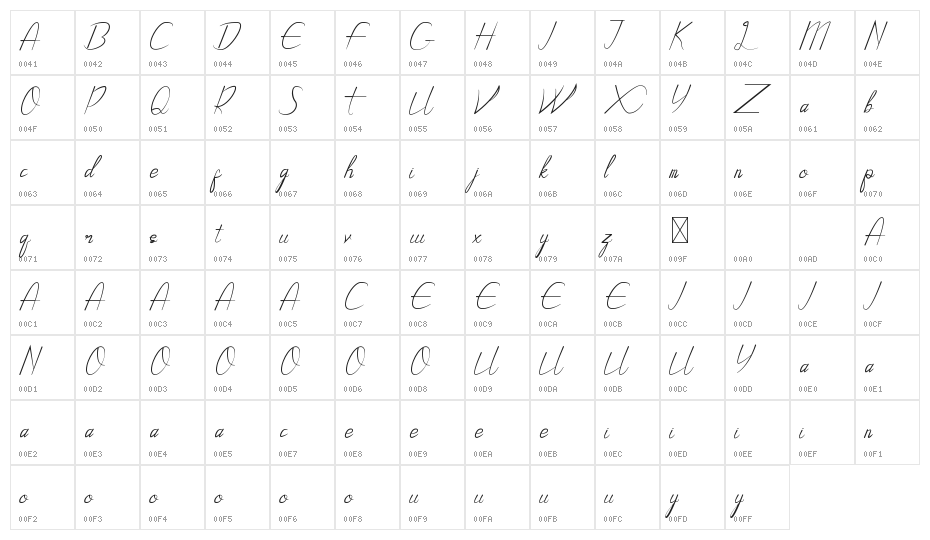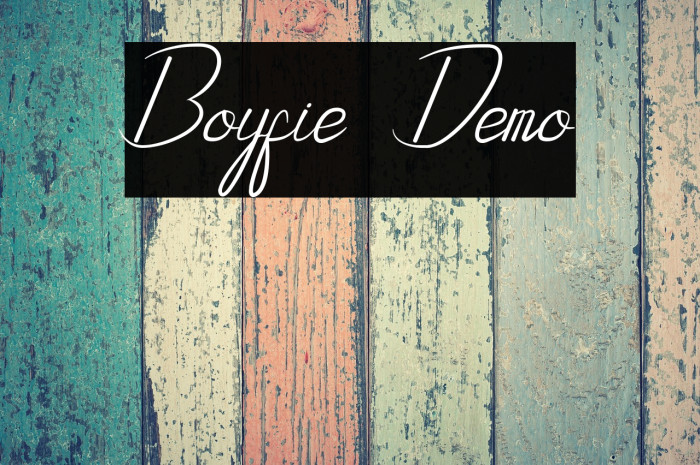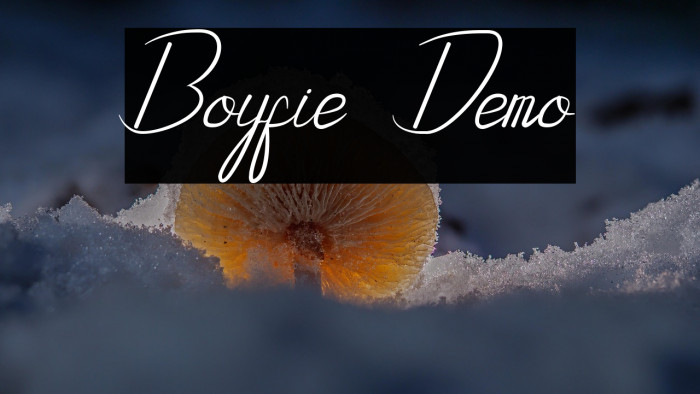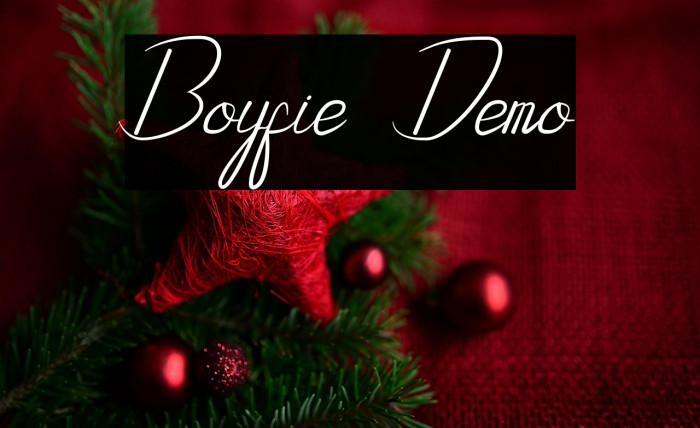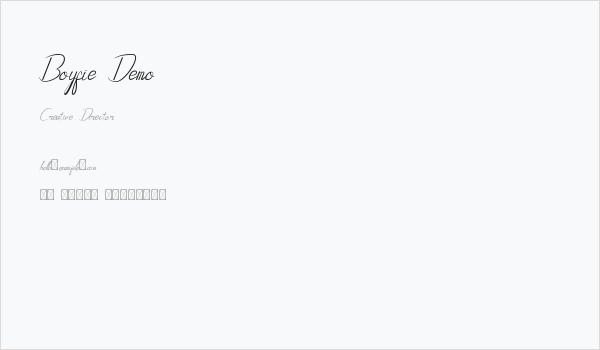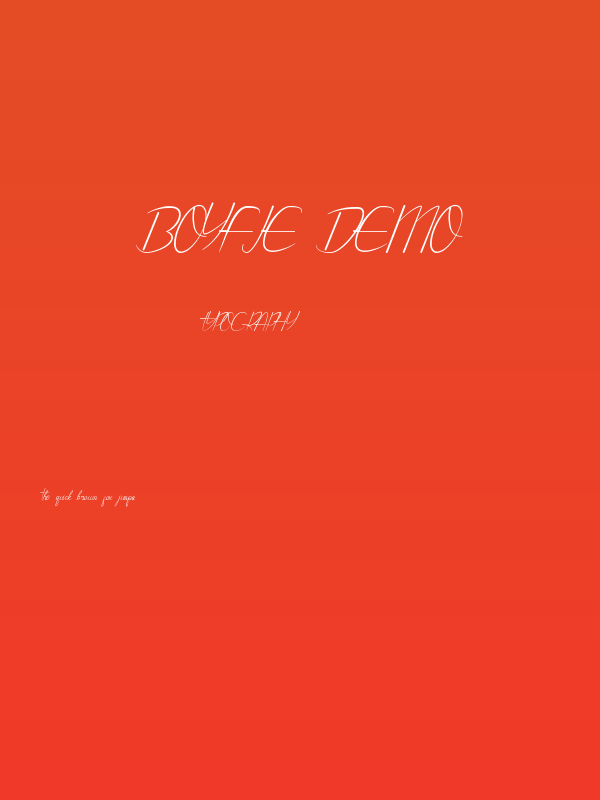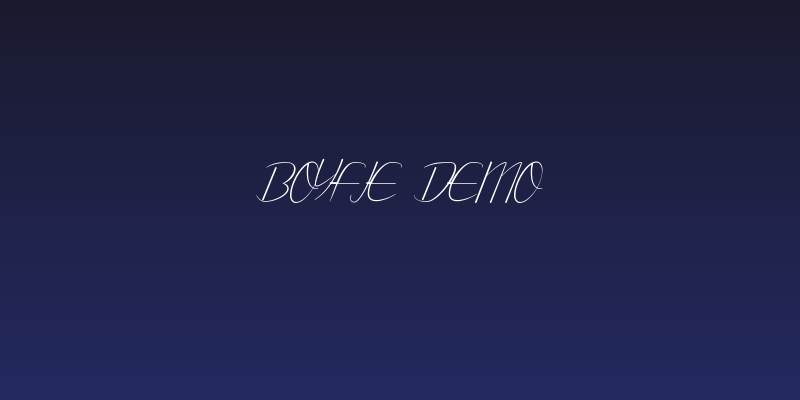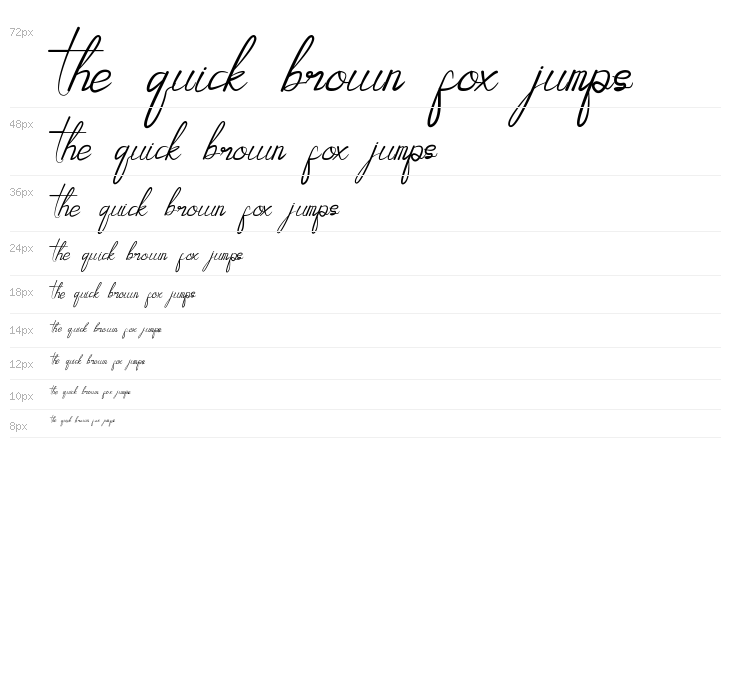
Boyfie Demo Font
Boyfie Demo Description
This font features an elegant and flowing script style, characterized by its thin, elongated strokes and graceful curves. The uppercase letters exhibit a sophisticated flair with extended ascenders and descenders, creating a sense of movement and fluidity. The lowercase letters maintain a consistent style, complementing the uppercase with their own delicate loops and swashes. The numerals and special characters are designed to match the overall aesthetic, ensuring a cohesive look across all text. This font's refined appearance makes it ideal for projects that require a touch of elegance and sophistication.